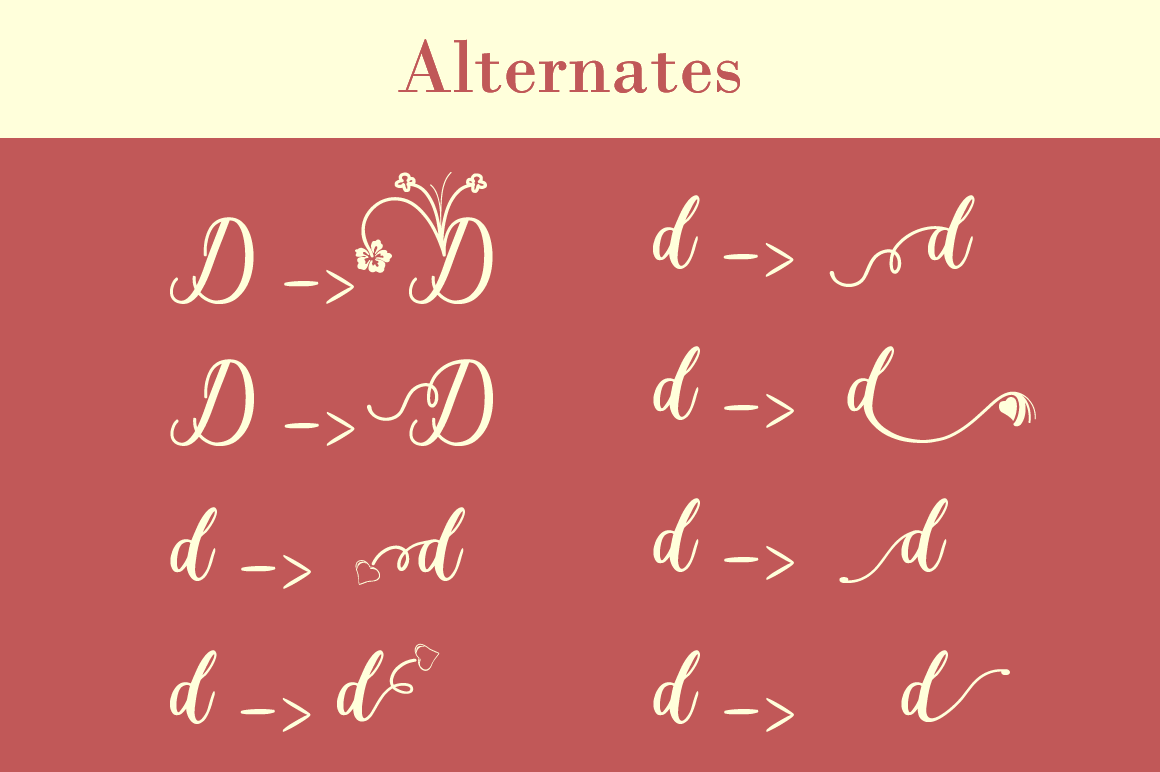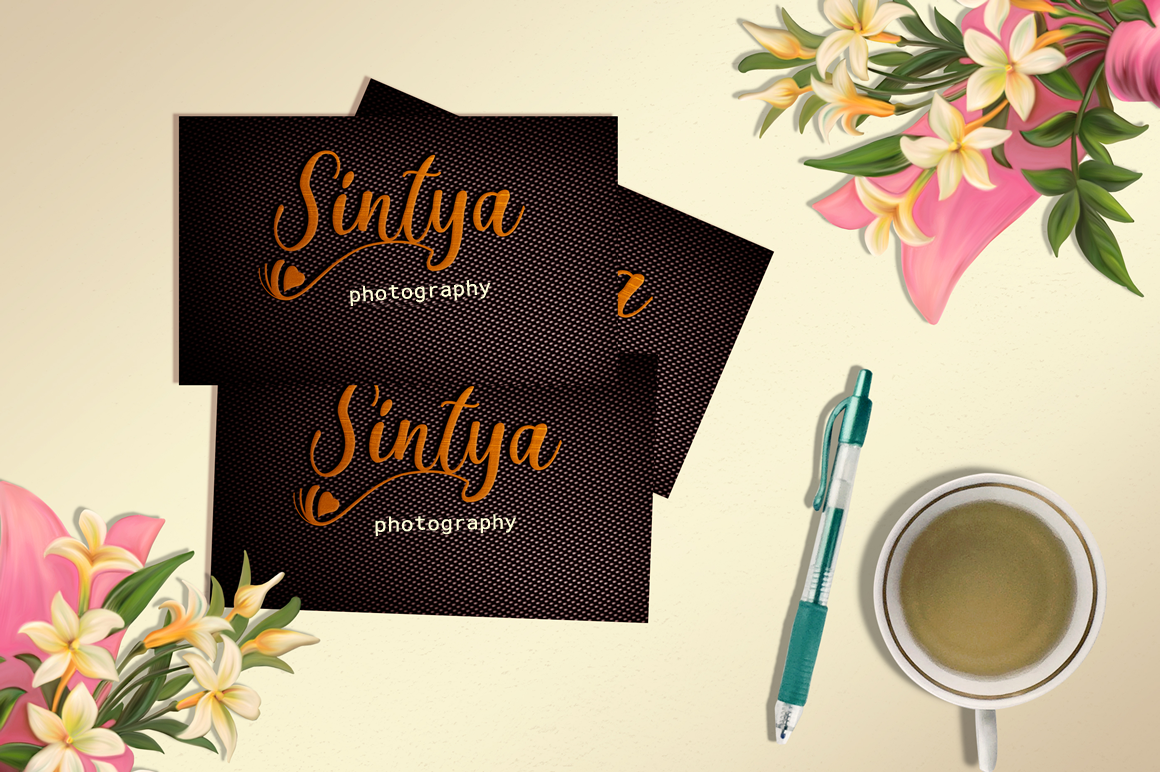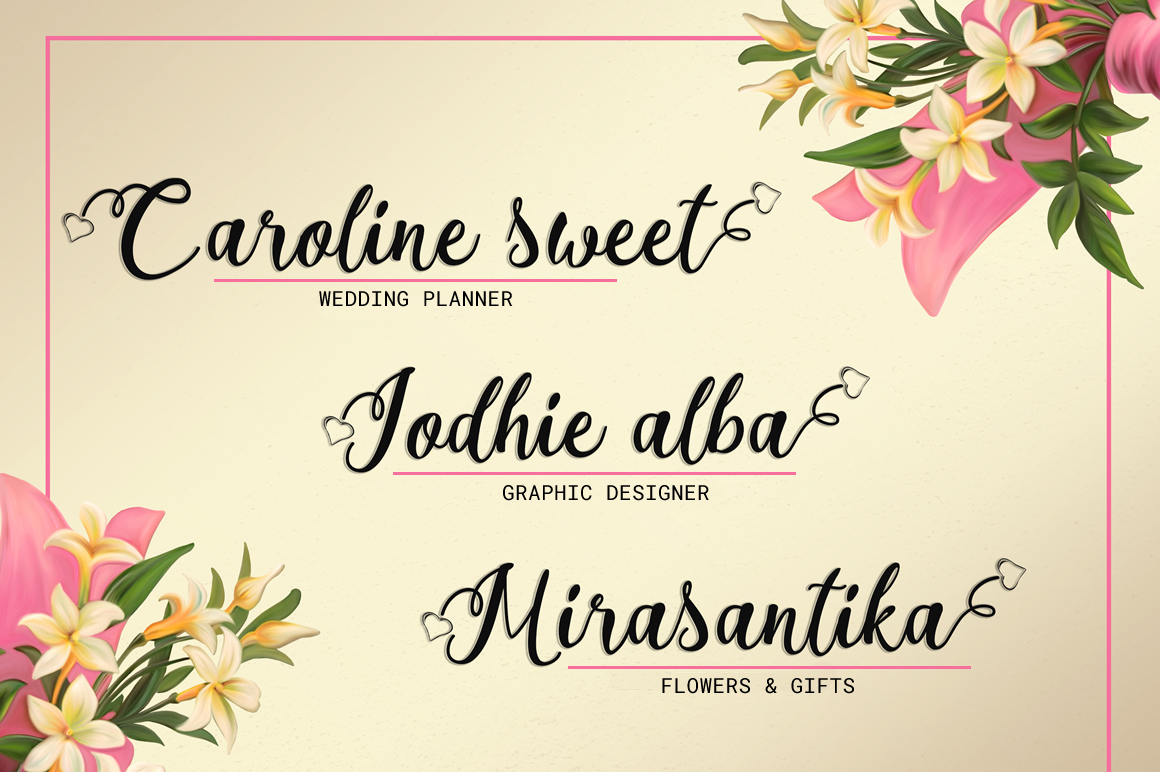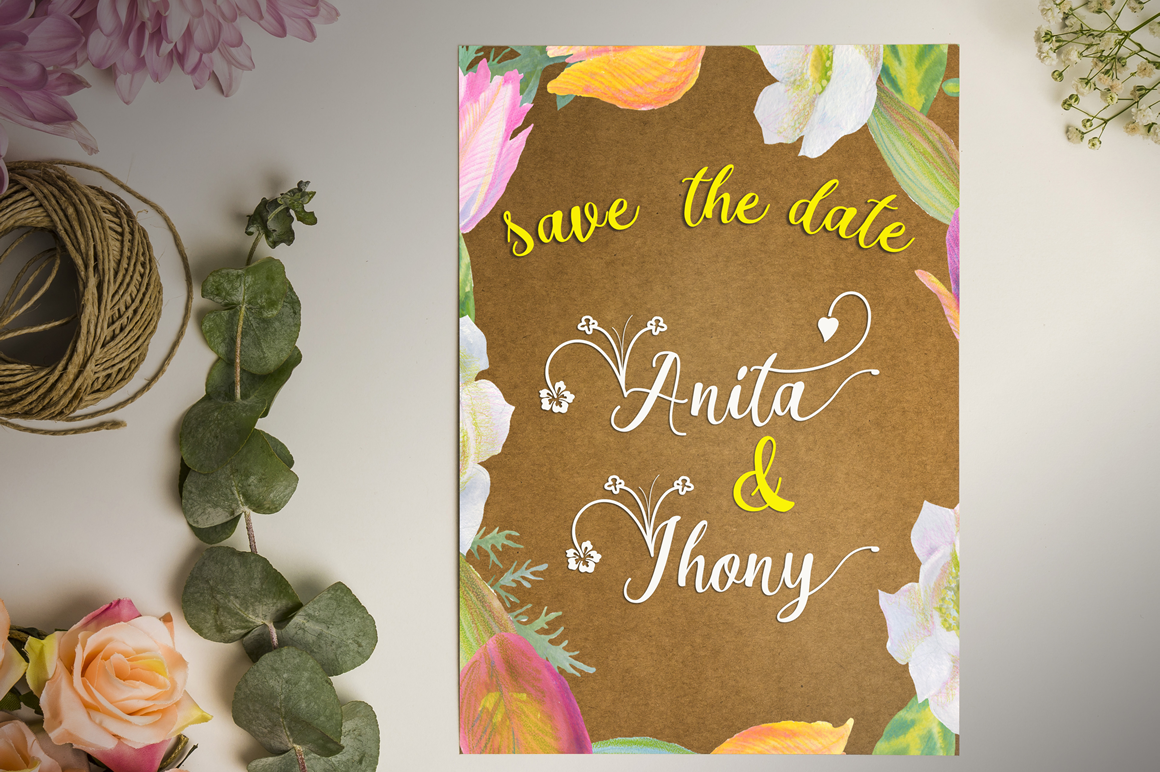
Introduction to Reugoe Script Font
Do you ever get that spark of inspiration while working on a creative project, only to find that the perfect font to match your vision is nowhere to be found? For designers, this is a common dilemma, but what if I told you there’s a solution that can elevate your designs to the next level? Enter the Reugoe Script Font, a stunning decorative script font that’s about to become your go-to design resource.
With its 4 unique versions – Regular, Bold, Slant & Outline – the Reugoe Script Font offers endless possibilities for creative expression. Whether you’re working on a project that requires a high-quality, eye-catching font or simply want to add a touch of elegance to your design, this font has got you covered. And the best part? It’s available for free download, making it a valuable asset for any designer looking to take their creative project to the next level.
Key Features of Reugoe Script Font
- High-quality, elegant script font ideal for creative projects and design resources.
- Includes a range of ligatures, swashes, and flourishes to add a touch of sophistication and elegance to any design.
- Perfect for use in wedding invitations, greeting cards, and other creative projects requiring a beautiful, handwritten font.
Honest Review: Reugoe Script Font
I recently stumbled upon the Reugoe Script Font and I have to say it’s a great addition to my design resource library. One of the standout features is the transparent background, which makes it super versatile for any creative project.
Here are some things that work well with this font:
- ✨ Beautiful handwritten style that’s perfect for quotes, invitations, and other decorative text
- ✨ High quality and crisp lines that make it suitable for print and digital use
- ⚠️ Limited character set and no support for some special characters
- ⚠️ May not be suitable for body text due to its cursive nature
Overall, I’m impressed with the Reugoe Script Font and would definitely recommend it for any design project that requires a high-quality, handwritten font. Just be aware of its limitations and use it accordingly.
Tips for Getting the Most Out of Reugoe Script Font
For the best results, use the Reugoe Script Font in combination with other elegant fonts to create a beautiful and balanced design. Experiment with different font sizes, colors, and arrangements to achieve the desired effect.
The Reugoe Script Font is ideal for use in wedding invitations, baby shower invitations, and other special occasion designs. It’s also perfect for creating elegant and sophisticated business cards, logos, and branding materials.